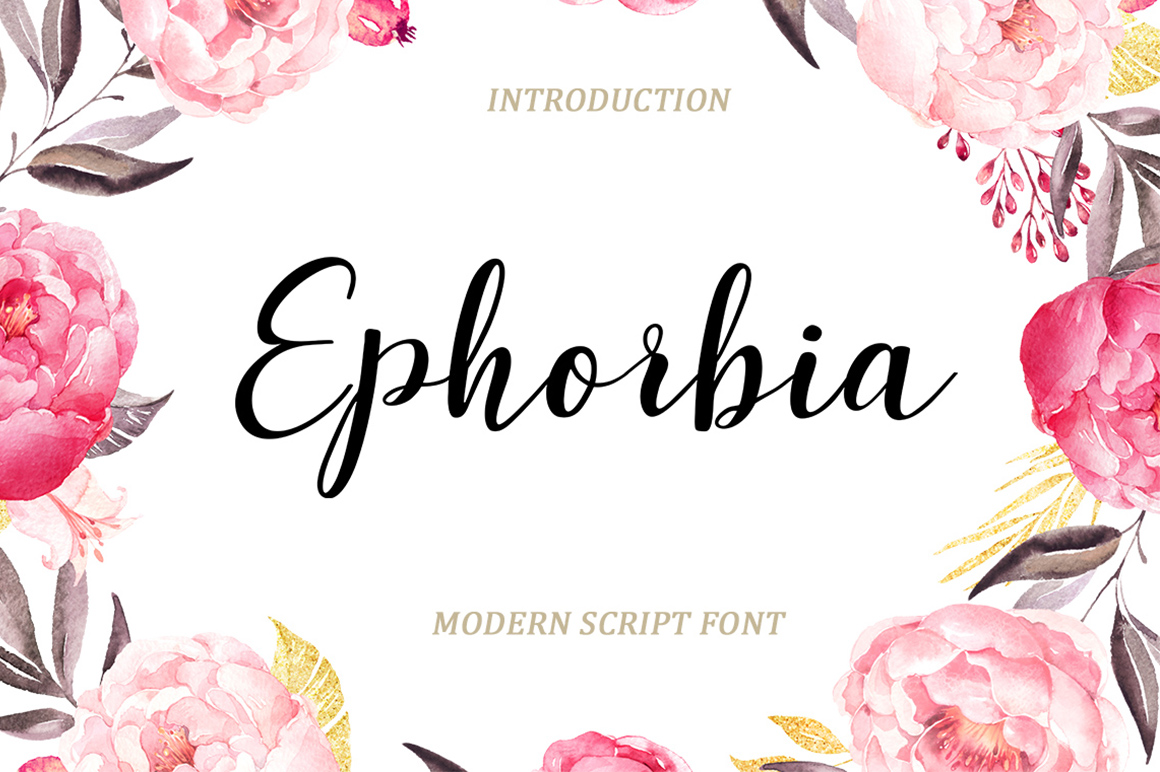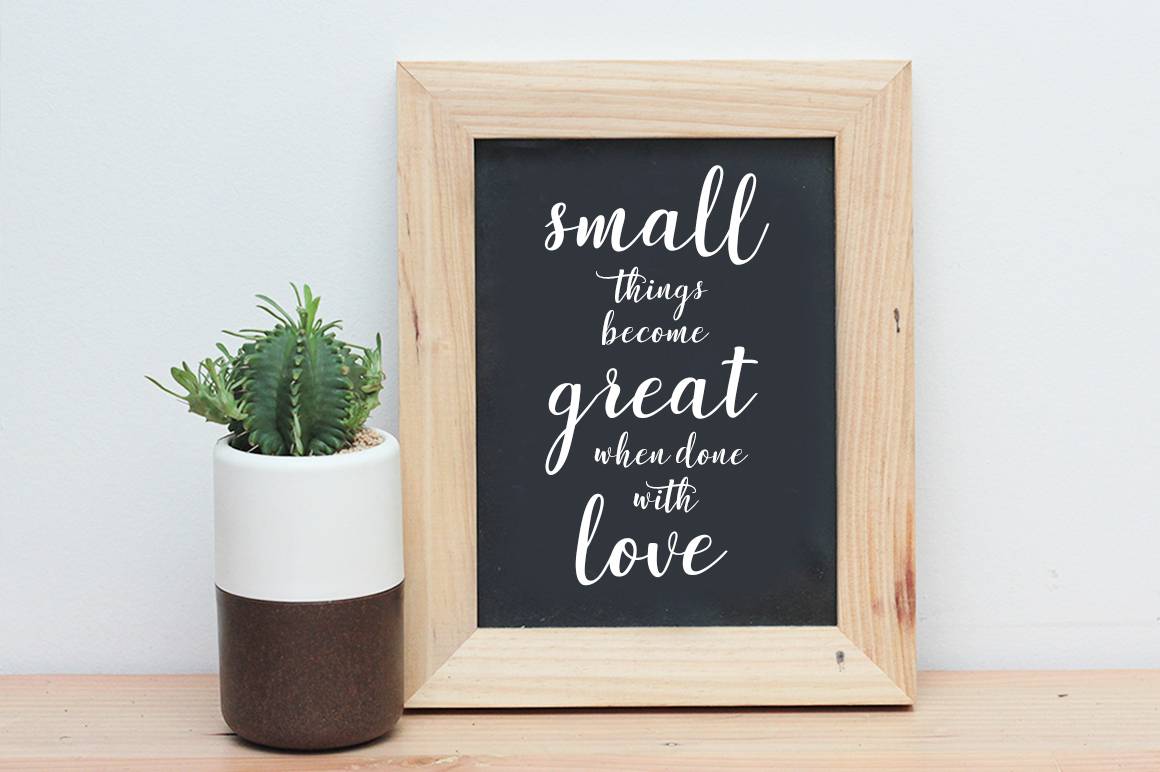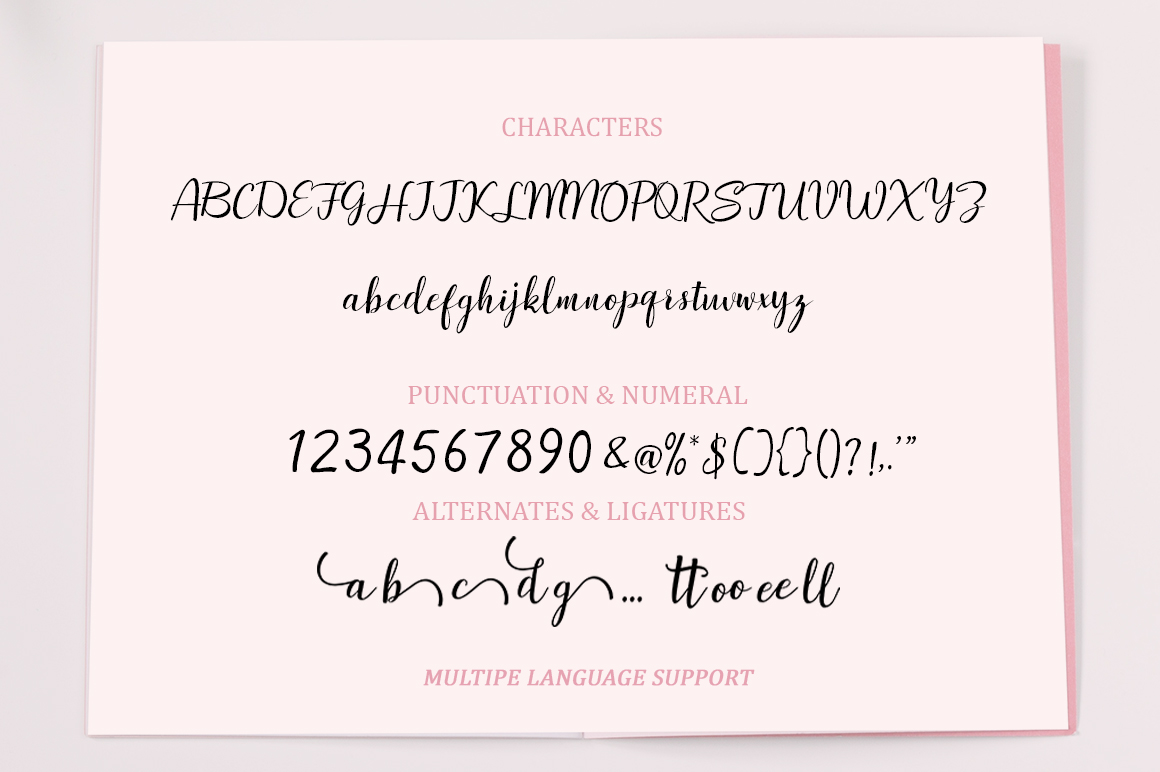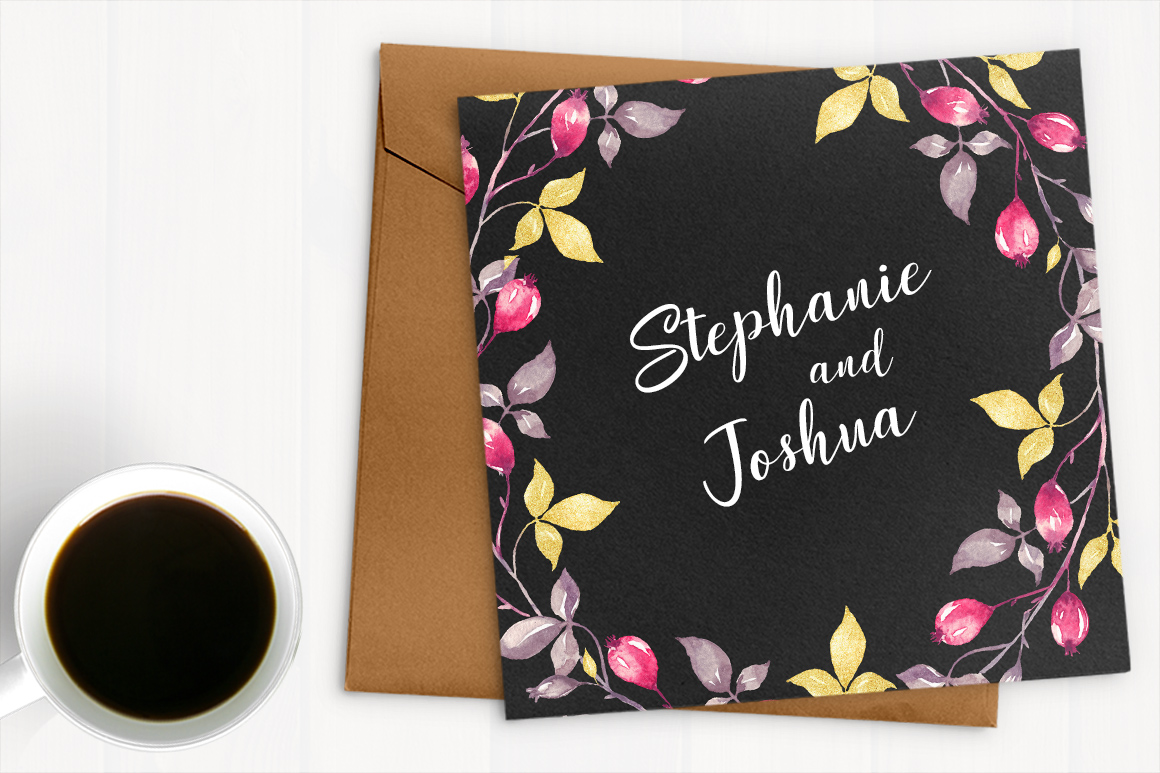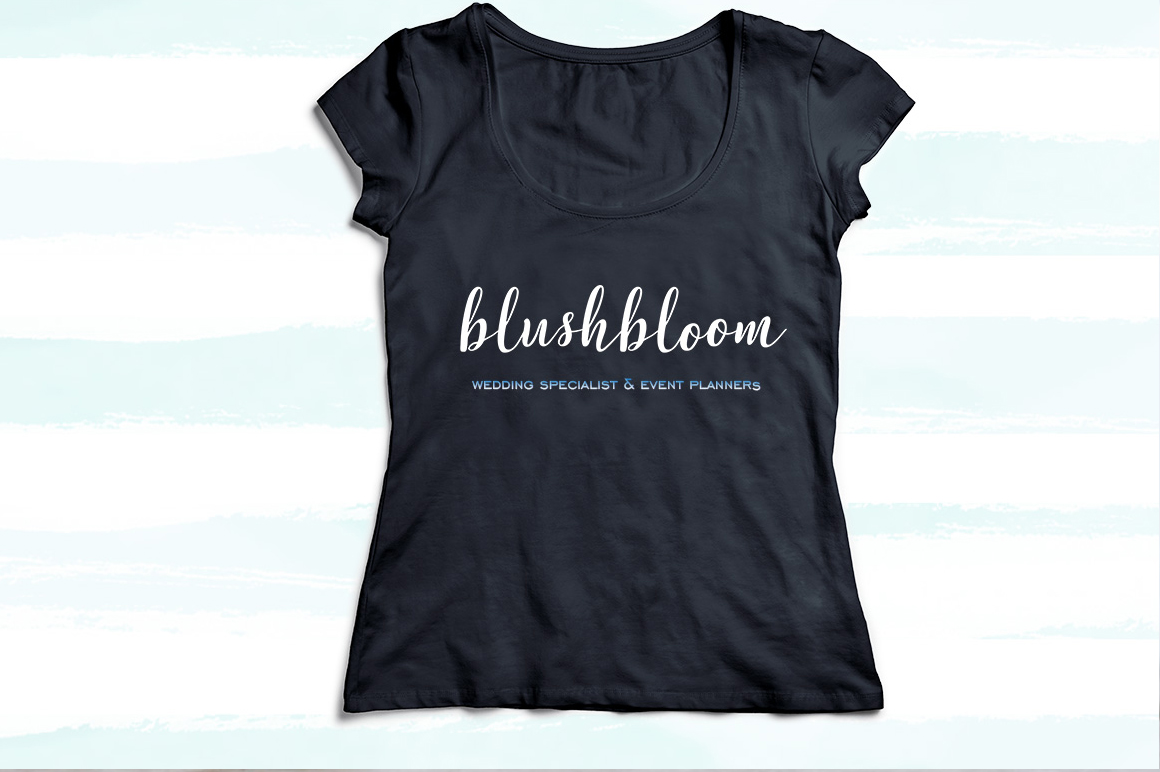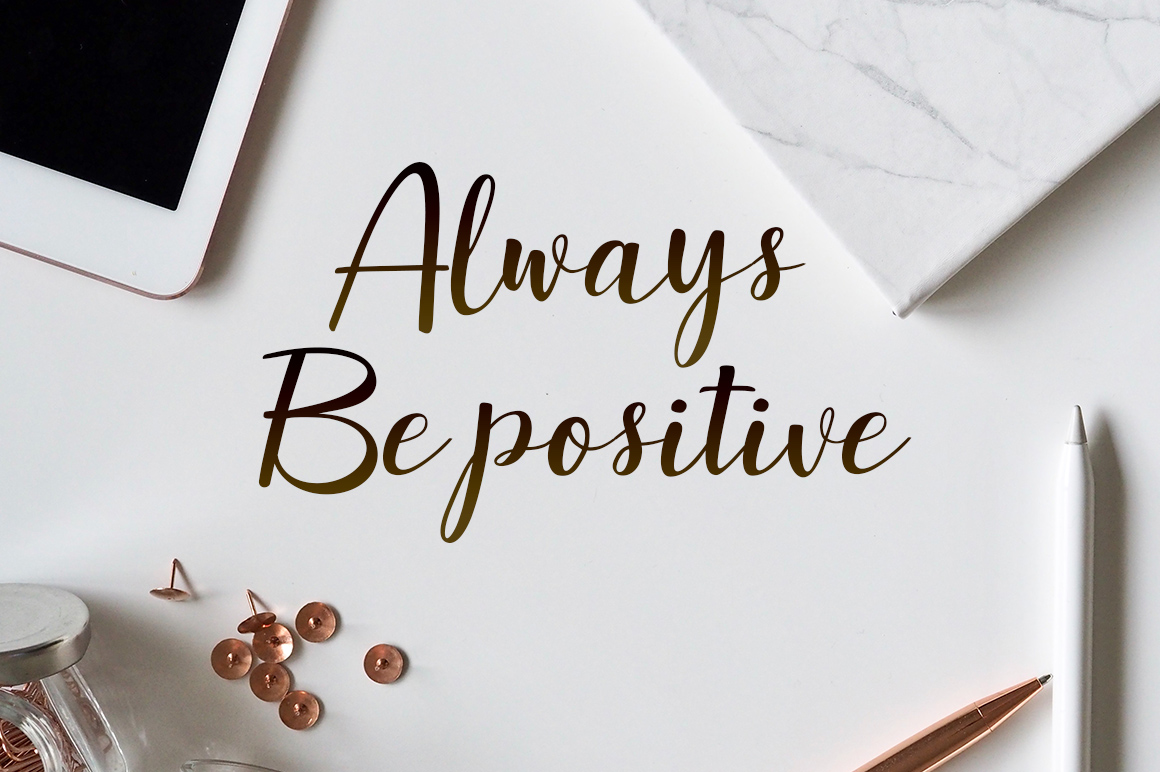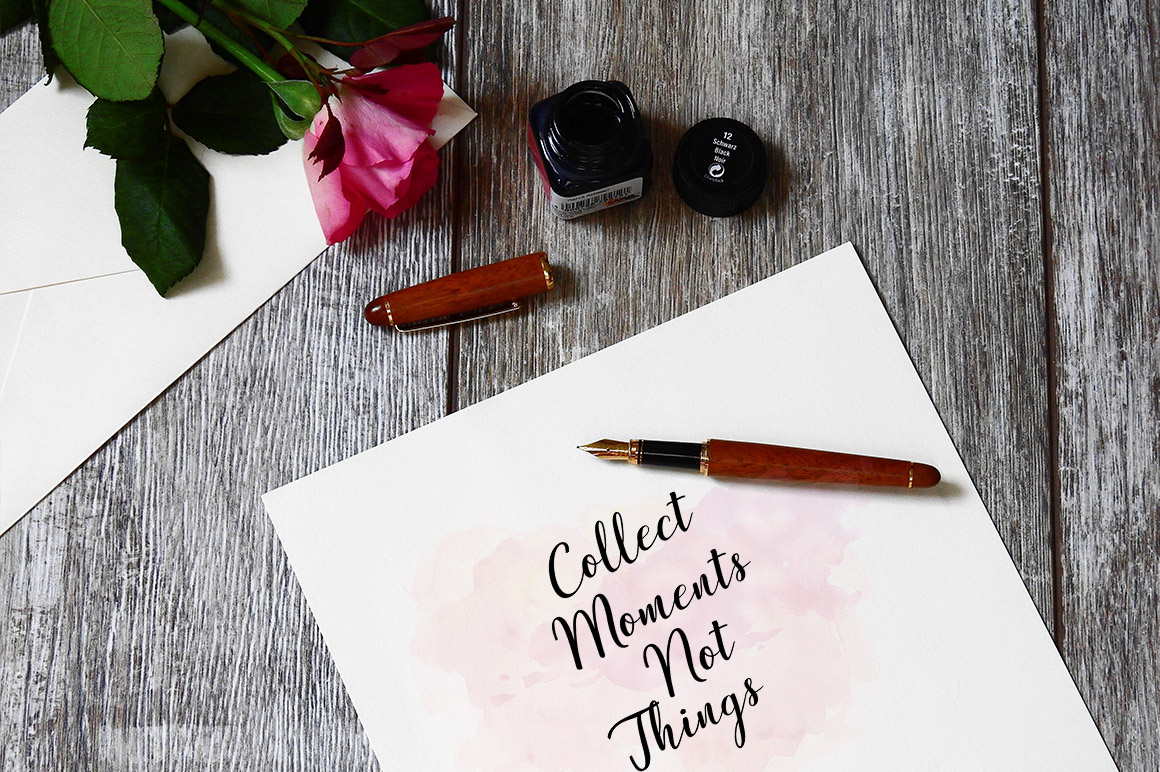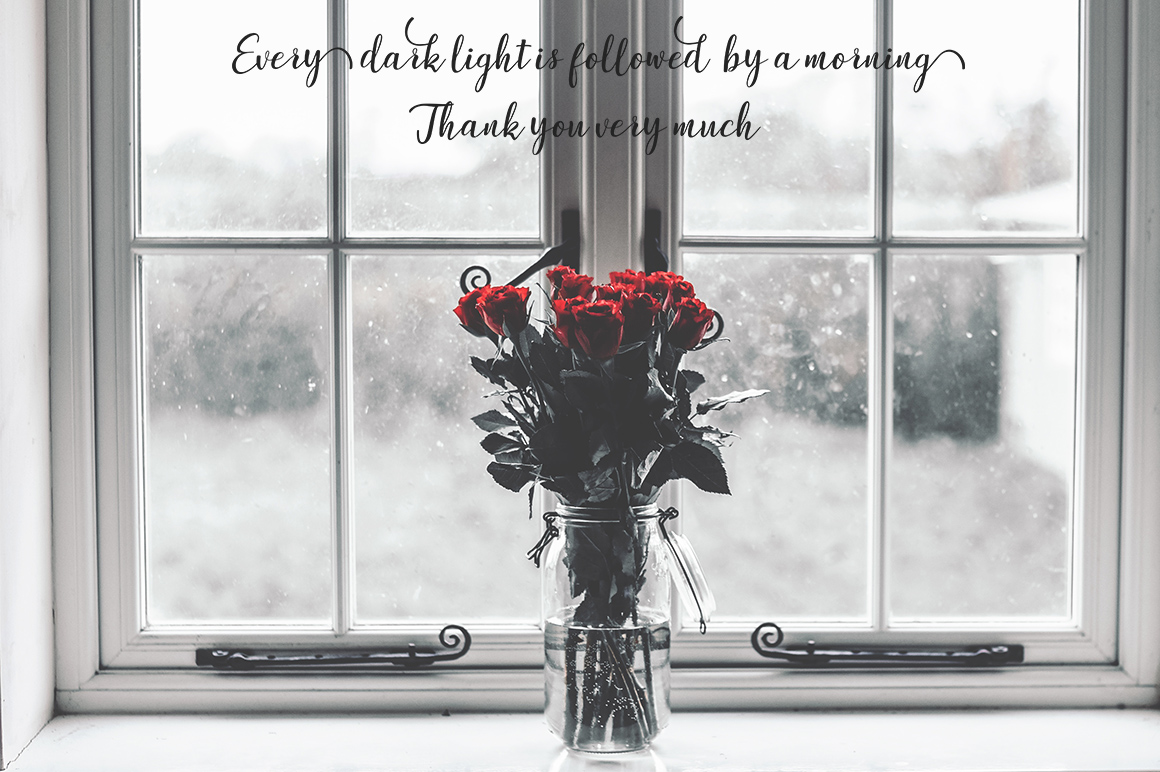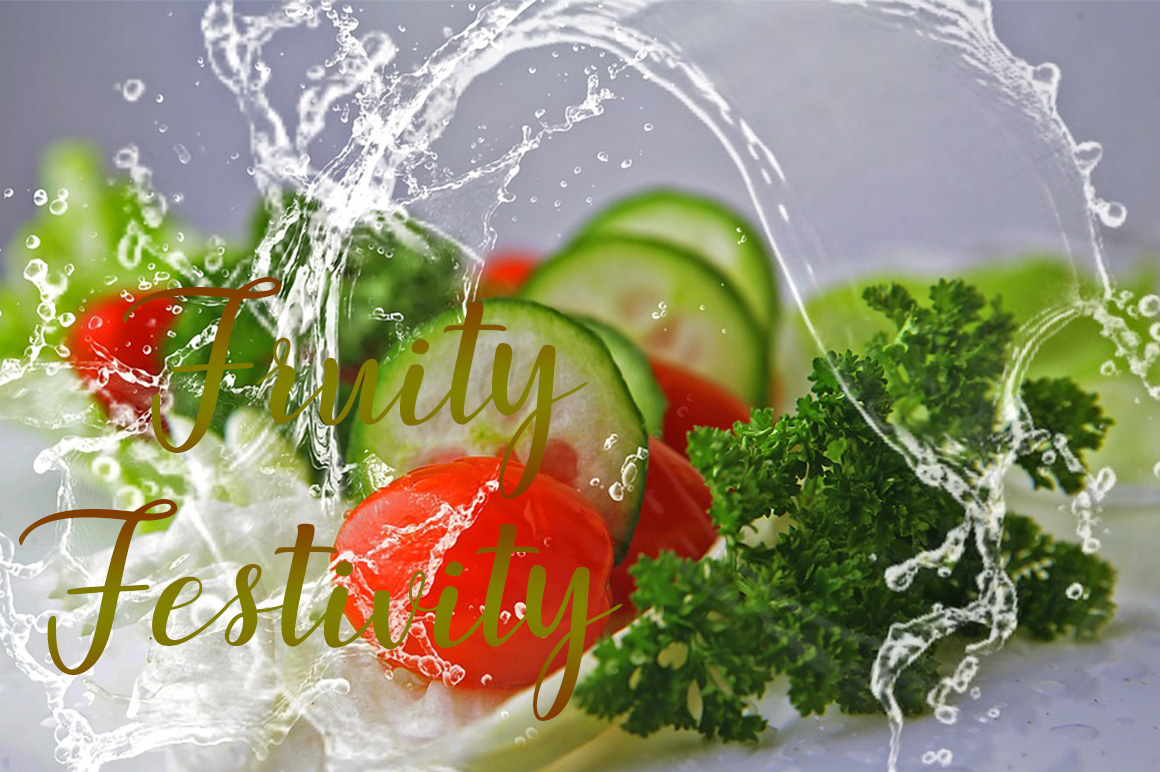
Ephorbia Font
About Ephorbia Font
Ephorbia Script is a modern script font with an irregular baseline. It has a trendy and feminine look & feel.
The Ephorbia Type looks lovely on wedding invitations, thank you cards, quotes, greeting cards, logos, business cards and more.